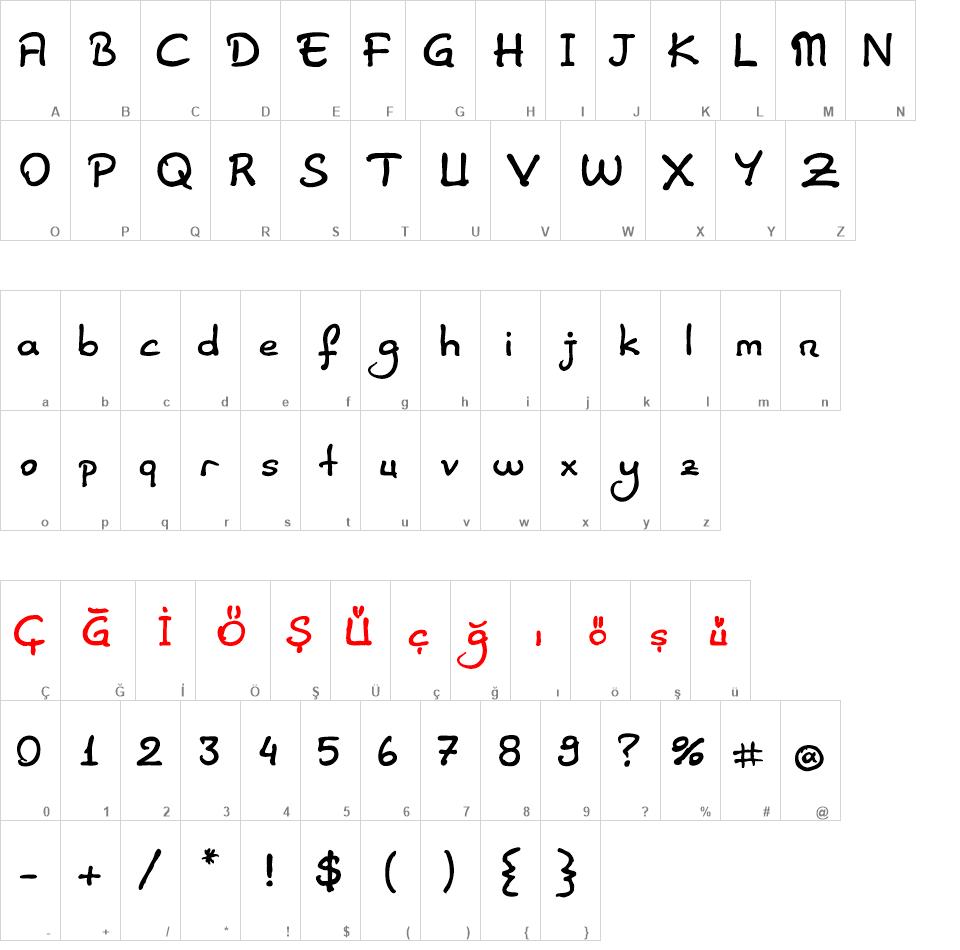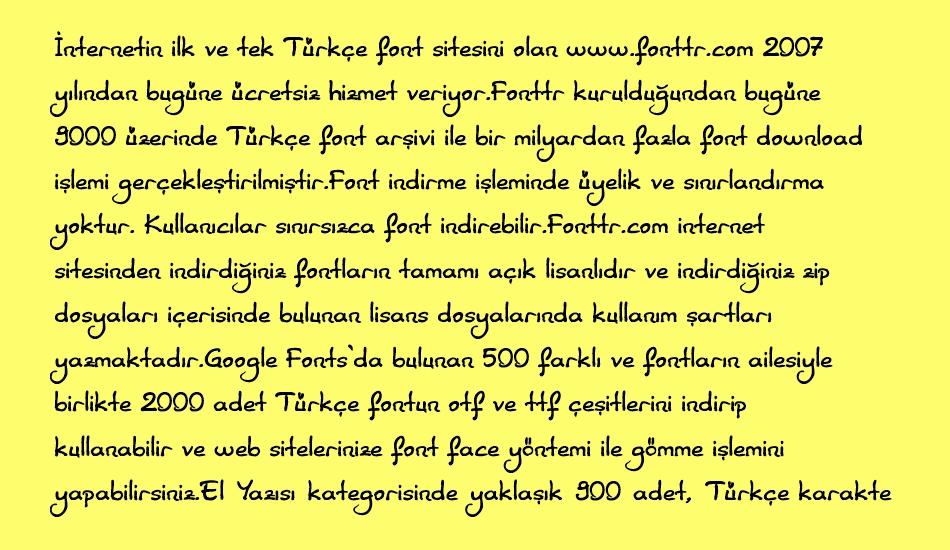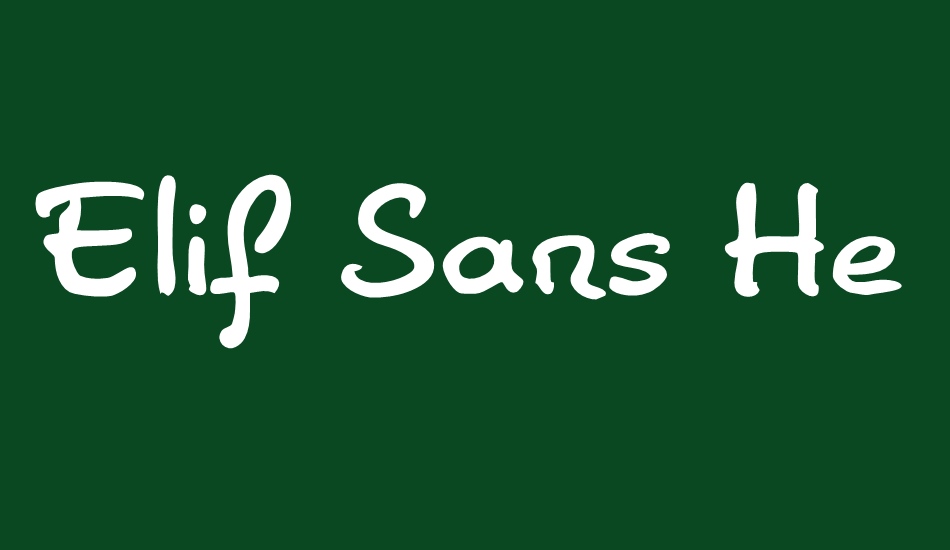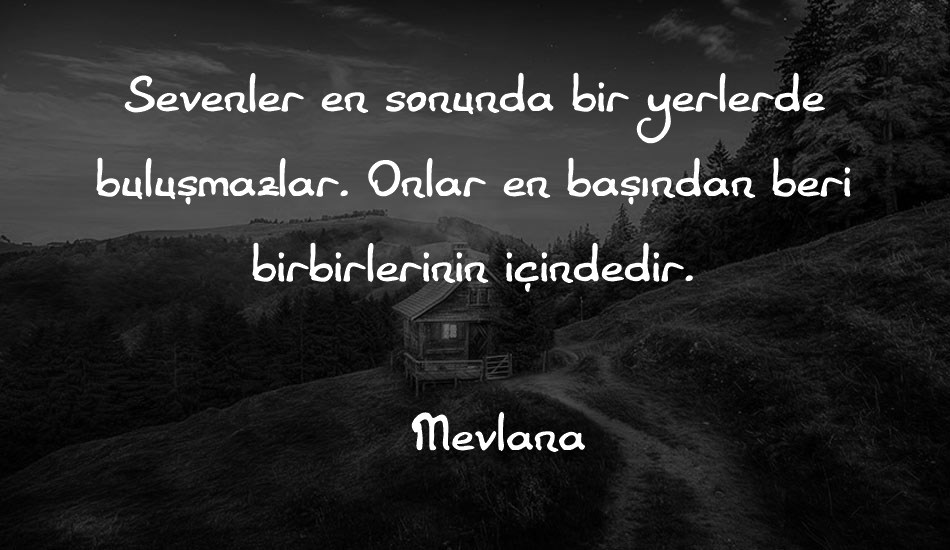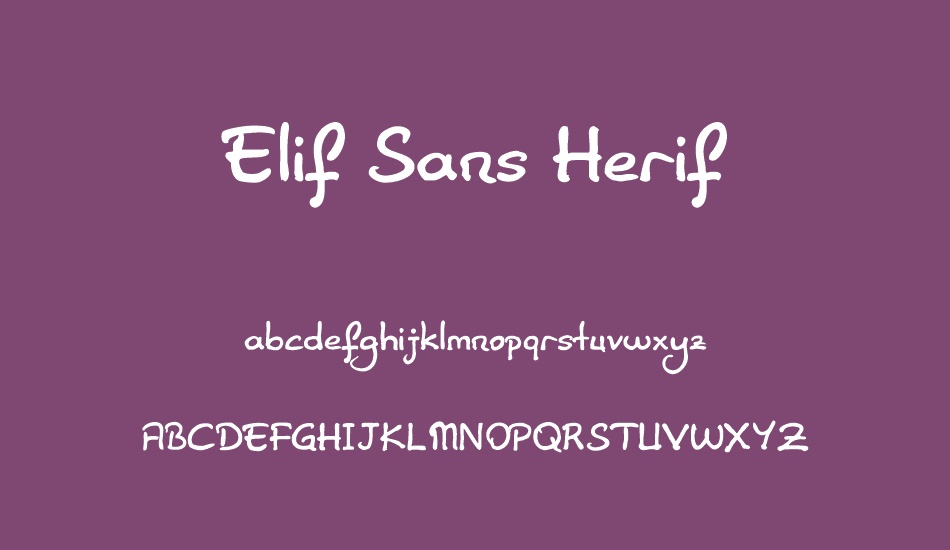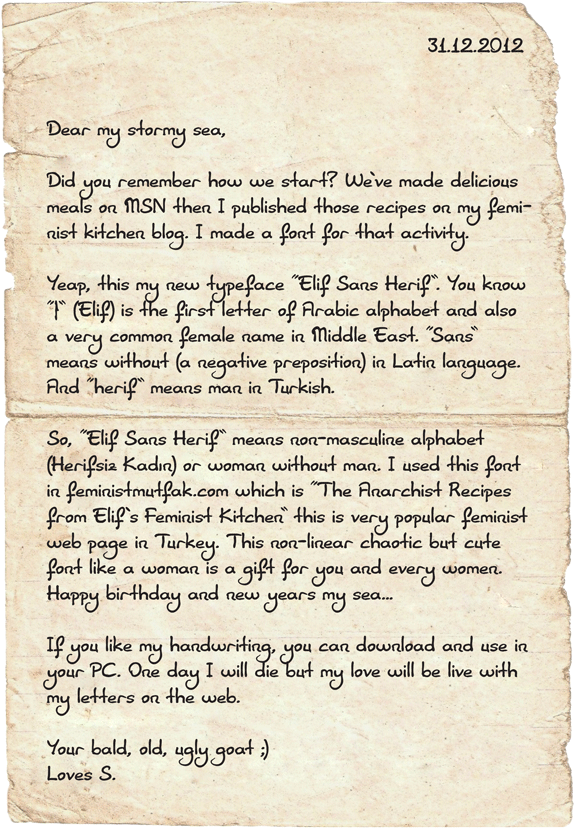
Elif Sans Herif font
Elif Sans Herif
I feel that rigid, linear, and solid fonts are too masculine like arial or verdana. That’s why I want to create a natural, non-linear, but legible fat finger typeface like women. Yes, I inspired by my feminist activist friends in Turkey. I used this font in anarcho-feminist web page https://feministmutfak.tumblr.com/ :)
PS: It also includes Turkish letters.